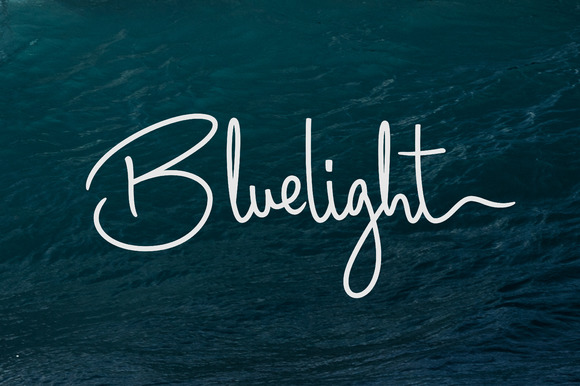
The Bluelight Font: A Modern Script with a Sweet Touch
I’ll never forget the moment I stumbled upon the perfect font for a client’s wedding invitation project. I had been searching for hours, trying out different scripts and serif fonts, but nothing seemed quite right. That was until I discovered Bluelight Script – a fresh and modern script with a sweet calligraphy-style, decorative characters, and a dancing baseline! ✨
An Honest Review of Bluelight Font
- ✨ The elegant, flowing lines that give it a sophisticated feel
- ✅ The unique decorative characters that add a touch of whimsy
- 💃 The dancing baseline that adds movement and energy to any design
- 🎉 The versatility to work well in a variety of design projects, from wedding invitations to branding and packaging
While Bluelight Font is an amazing addition to any designer’s toolkit, there are a few things to keep in mind: 🤔
- ⚠️ Some of the more intricate characters may not display well at smaller font sizes
- ⚠️ The font may not be suitable for body text, as it’s best used for headlines and titles
The Designer Inspiration Behind Bluelight Font
Bluelight Script was designed with the intention of creating a modern, elegant script that would add a touch of sophistication to any design project. The designer, who wishes to remain anonymous, drew inspiration from classic calligraphy and modern typography to create a unique and versatile font.
Q: What is Bluelight Font?
A: Bluelight Font is a modern script with a sweet calligraphy-style, decorative characters, and a dancing baseline.
Q: What can I use Bluelight Font for?
A: Bluelight Font is perfect for a variety of design projects, including wedding invitations, branding, packaging, and social media graphics.